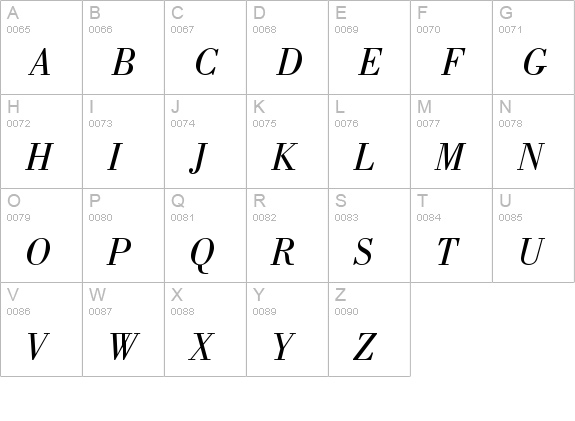
Bodoni Book Italic Font Details
Bodoni Book Italic is a comfortable, highly readable, italic variant in the Bodoni typeface family \xE2\x80\x94 well suited to long-form body text, articles, and editorial content.
Bodoni Book Italic is a sophisticated and elegant typeface that exudes a sense of refinement and style. With its slanted, flowing letterforms and delicate serifs, this font brings a touch of grace and sophistication to any design project. The italic style adds a sense of flair and movement, making it perfect for adding emphasis or creating a sense of elegance. Best of all, Bodoni Book Italic is available for free download at FontsMarket.com. Whether you're working on a branding project, editorial design, or any other creative endeavor, this font is a versatile choice that will elevate your work to new heights. Embrace the beauty and elegance of Bodoni Book Italic in your next design project and watch it come to life with style and sophistication.